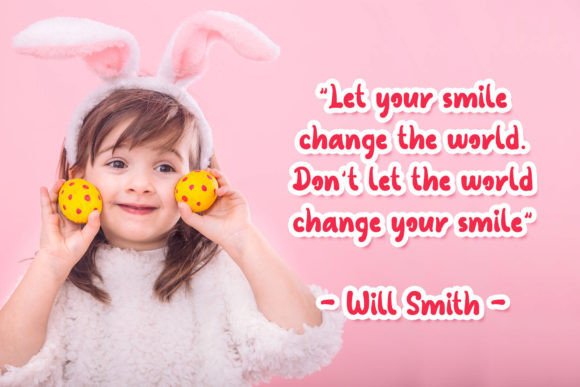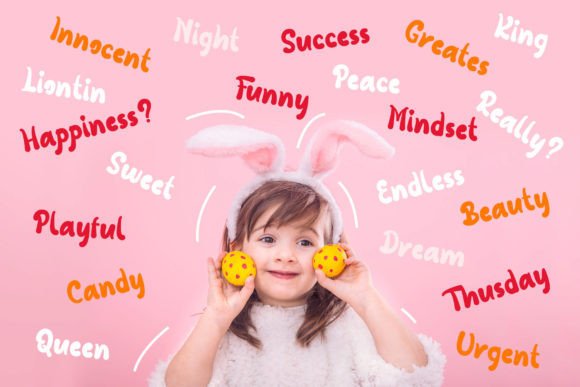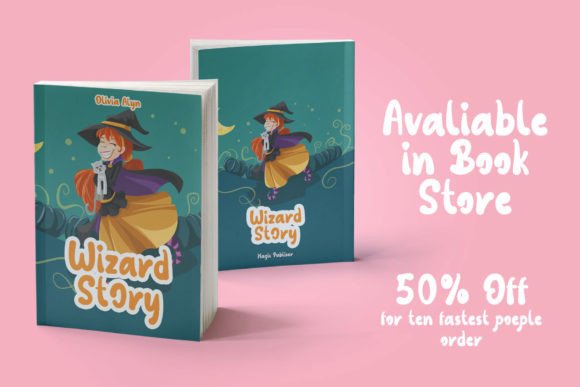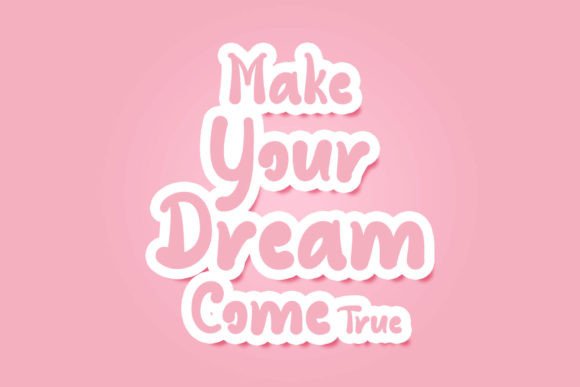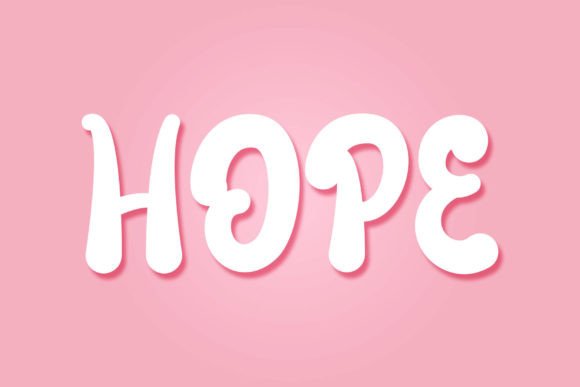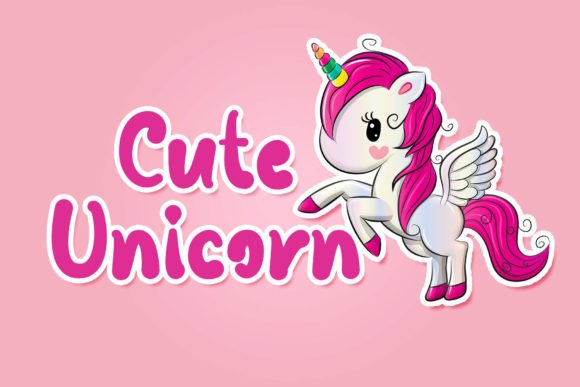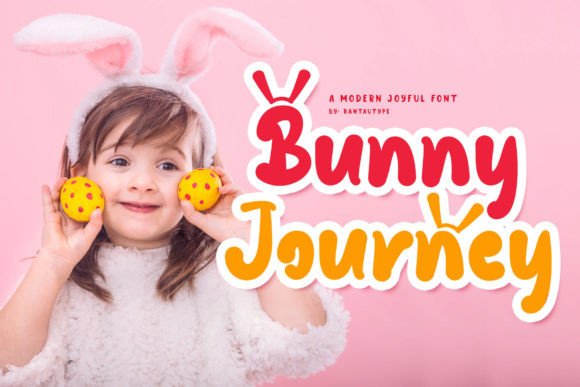
Bunny Journey Font: A Playful and Child-Friendly Display Font
Are you looking for a font that can add a touch of playfulness and whimsy to your designs? Look no further than the Bunny Journey Font! This delightful display font is perfect for designers and crafters who want to create engaging and child-friendly content. In this article, we’ll take a closer look at the Bunny Journey Font, its features, and how you can use it to elevate your designs.
What is Bunny Journey Font?
Bunny Journey Font is a playful display font designed to capture the imagination of children and adults alike. Its child-friendly design makes it an excellent choice for projects targeted towards kids, such as children’s books, educational materials, and kids’ party decorations. The font’s playful and carefree vibe is perfect for adding a personal touch to your designs.
Key Features of Bunny Journey Font
- Playful Design: Bunny Journey Font boasts a unique and playful design that is sure to grab attention. Its fun and quirky style makes it perfect for designs that require a lighthearted touch.
- Child-Friendly: The font’s child-friendly design makes it suitable for projects targeted towards kids, such as children’s books, educational materials, and kids’ party decorations.
- Versatile: Bunny Journey Font is a versatile font that can be used for a wide range of design projects, including logos, packaging designs, posters, books, and more.
Use Cases for Bunny Journey Font
Bunny Journey Font is a versatile font that can be used for various design projects. Here are some use cases to get you started:
- Children’s Books: Add a playful touch to your children’s books with Bunny Journey Font. Its child-friendly design makes it perfect for storybooks, picture books, and early readers.
- Logos and Branding: Create a fun and memorable logo for your kids’ brand or product with Bunny Journey Font. Its playful design makes it perfect for brands that cater to children.
- Packaging Designs: Add a personal touch to your packaging designs with Bunny Journey Font. Its playful style makes it perfect for product packaging, gift wrapping, and more.
- Posters and Flyers: Create eye-catching posters and flyers with Bunny Journey Font. Its bold and playful design makes it perfect for promoting kids’ events, parties, and activities.
Tips for Using Bunny Journey Font
Here are some tips to help you get the most out of Bunny Journey Font:
- Pair it with Other Fonts: Experiment with pairing Bunny Journey Font with other fonts to create a unique and visually appealing design.
- Use it for Headings: Use Bunny Journey Font for headings and titles to add a playful touch to your designs.
- Experiment with Colors: Don’t be afraid to experiment with different colors to match your brand’s personality and style.
Bunny Journey Font is a playful and child-friendly display font that is perfect for designers and crafters who want to add a touch of whimsy to their designs. Its versatile design makes it suitable for a wide range of projects, from children’s books to logos and packaging designs. With its playful style and child-friendly design, Bunny Journey Font is sure to delight kids and adults alike. So why not give it a try and see how it can elevate your designs?